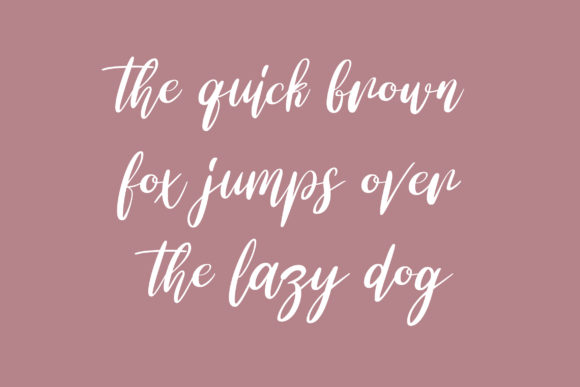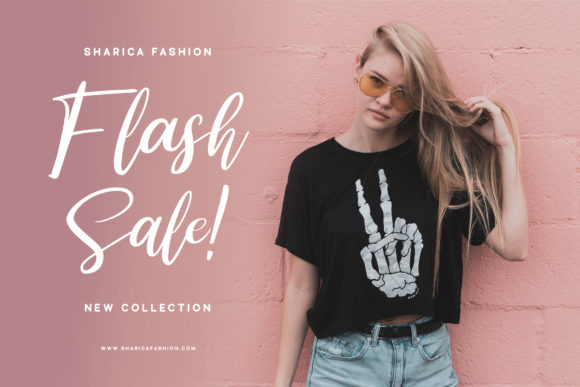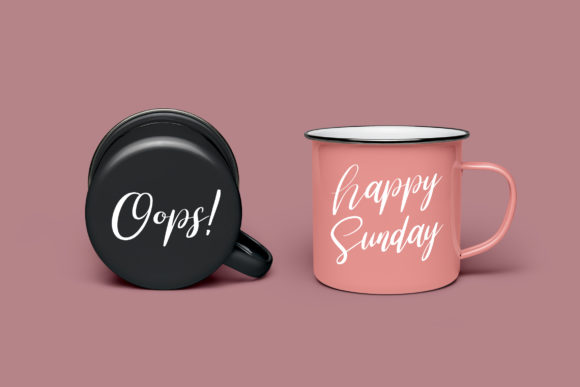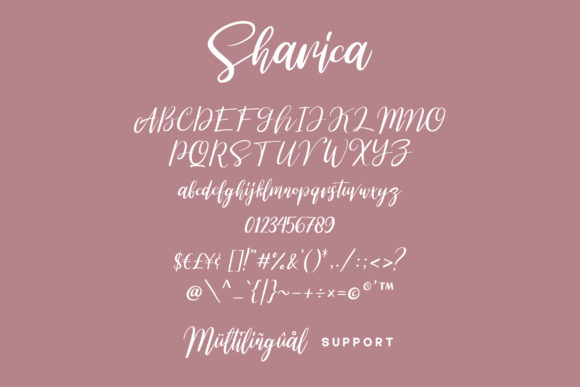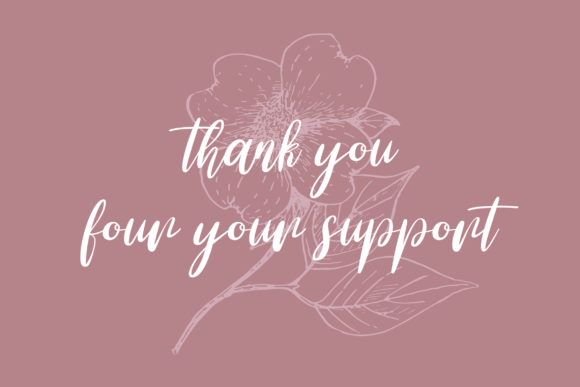
Introduction to Sharica Font
Have you ever been in the middle of a creative project, pouring your heart and soul into it, only to realize that something’s missing – that special touch that sets it apart? For designers, finding the perfect font can be the difference between a good project and a great one. This is where Sharica Font comes in – a fresh, bouncy hand-drawn script that adds a romantic touch to any crafting project.
What makes Sharica Font truly special is its unique style, which can elevate any design from ordinary to extraordinary. With a free download available, designers can access this high-quality design resource and take their creative projects to the next level. Plus, the transparent background makes it easy to layer and customize to suit any design need.
Key Features of Sharica Font
- Features a transparent background, making it easy to use in any design
- Designed with a unique and modern aesthetic, perfect for adding a touch of elegance to any project
- Includes a comprehensive character set, making it suitable for use in a variety of languages
Honest Review: Sharica Font
As a designer, I’m always on the lookout for high-quality design resources to elevate my creative projects. Recently, I had the chance to try out the Sharica Font, and I must say it’s a great addition to any design arsenal.
- ✨ Beautiful, elegant script font perfect for wedding invitations, birthday cards, or any other romantic-themed project
- ✨ Includes a transparent background option, making it easy to use on any design background
- ⚠️ Limited font sizes and styles available, which may limit its versatility in certain design projects
- ⚠️ Not ideal for headings or body text, as it can be quite ornate and difficult to read in certain contexts
Overall, I’m impressed with the Sharica Font’s high-quality design and versatility. While it may not be suitable for every project, it’s a great choice for designers looking to add a touch of elegance and sophistication to their work.
Tips for Getting the Most Out of Sharica Font
To get the most out of Sharica Font, use it with a transparent background to create stunning designs. You can also experiment with different font sizes and styles to achieve the desired effect.
Sharica Font is ideal for use in creative projects such as logos, brochures, and social media graphics. Its high-quality design makes it perfect for both personal and professional projects.
Alternatives to Sharica Font
Pacifico Font is a high-quality, elegant script font that is ideal for creative projects that require a touch of sophistication. It is available for free download and features a transparent background, making it perfect for designing logos, posters, and other visual elements. When to use: For designs that need a luxurious and refined feel.
Comparison to Sharica Font: While Sharica Font has a more modern and edgy feel, Pacifico Font offers a more traditional and classic look, making it suitable for projects that require a more subtle approach.
Great Vibes Font is a modern, elegant script font that is perfect for designers looking for a high-quality design resource. It is available for free download and features a transparent background, making it ideal for creative projects that require a unique and eye-catching look. When to use: For designs that need a modern and sophisticated feel.
Comparison to Sharica Font: Great Vibes Font has a more refined and polished look compared to Sharica Font, making it suitable for projects that require a high-end feel.
Alex Brush Font is a beautiful, handwritten font that is perfect for designers looking for a unique and creative design resource. It is available for free download and features a transparent background, making it ideal for designing logos, posters, and other visual elements. When to use: For designs that need a personal and artistic touch.